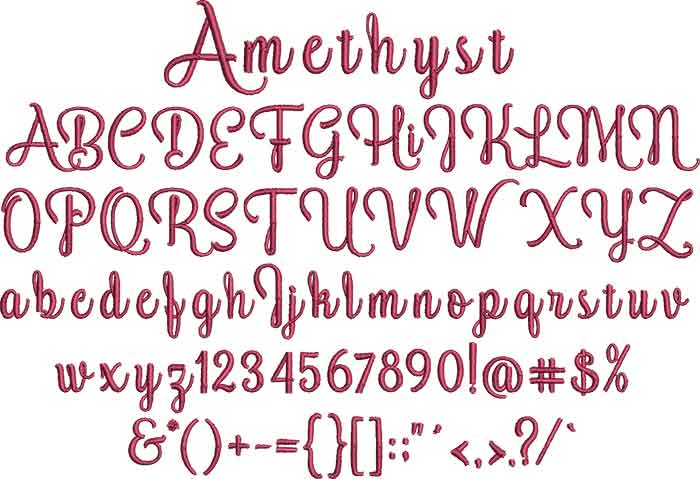
BX Embroidery Font: Amethyst
BX Embroidery Font: Resizable upright script font in native BX format.
BX embroidery font:
Amethyst (4 sizes) is a casual, upright script machine embroidery font that includes A-Z, a-z, 0-9 and the following punctuation: `!@#$%&*()-+={}[]|:;”‘<>,.?/ (91 total characters per size). This is an object-based BX keyboard alphabet file and requires Embrilliance Essentials.